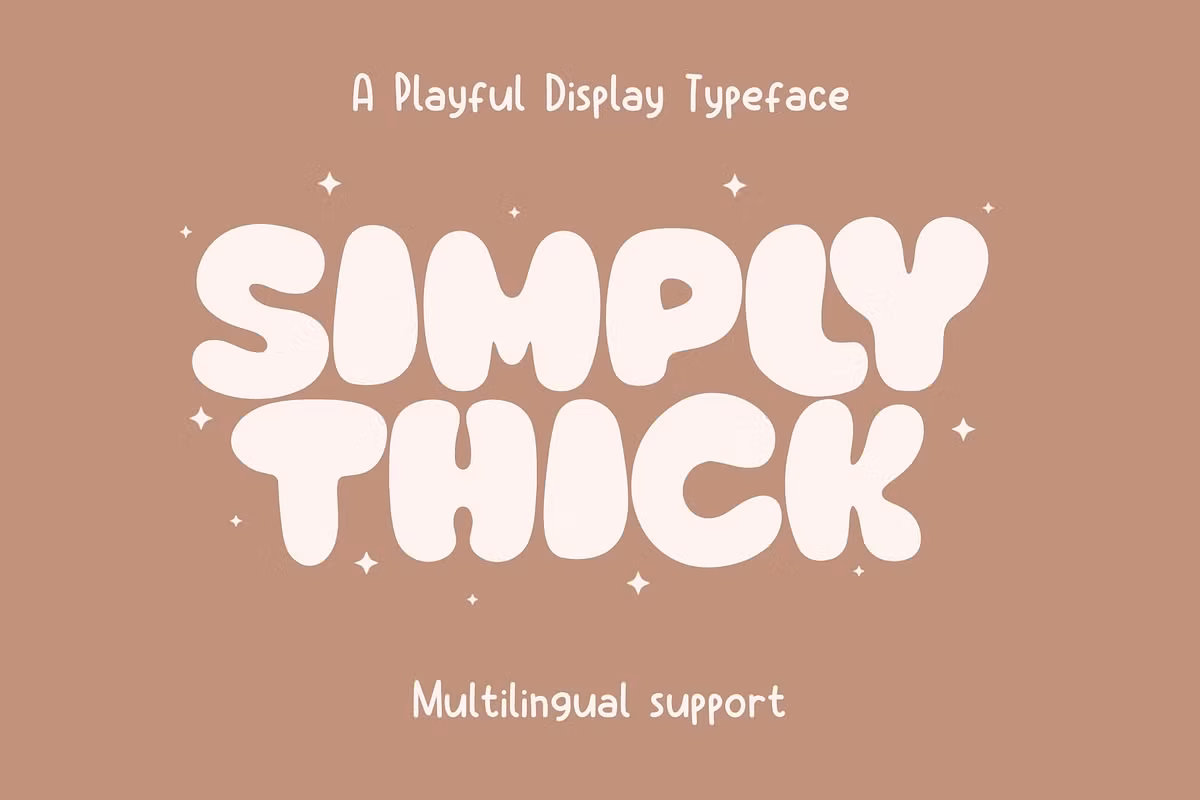
Simply Thick - Bubble Playful Font Free Download
Please note, to use this font for commercial purposes, you must purchase the full version. Simply Thick is a fun and playful bubble font that adds a touch of whimsy and personality to any design. With its bold, rounded letterforms and lively style, this font is perfect for children's designs, product packaging, posters, and logos that need a cheerful, vibrant vibe. Whether you're working on a playful brand identity or a fun invitation, Simply Thick brings a sense of joy to your projects. Test it out and enjoy free download access for personal use. Try Simply Thick - Bubble Playful Font Free Download and see how it can add energy and fun to your designs before committing to the paid version. Bring your creations to life with this bold and bubbly font.